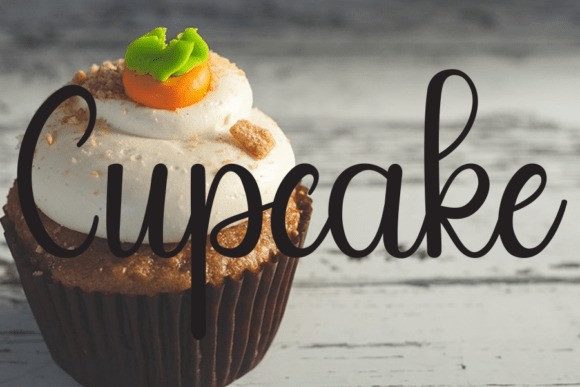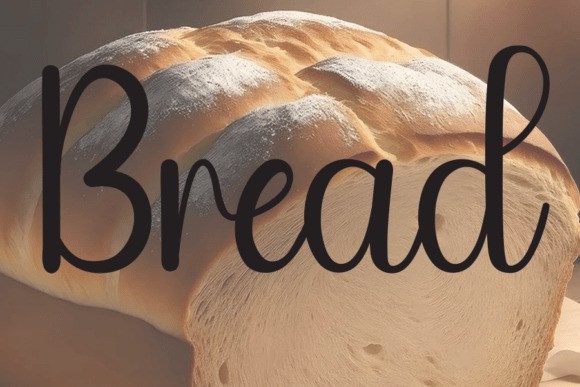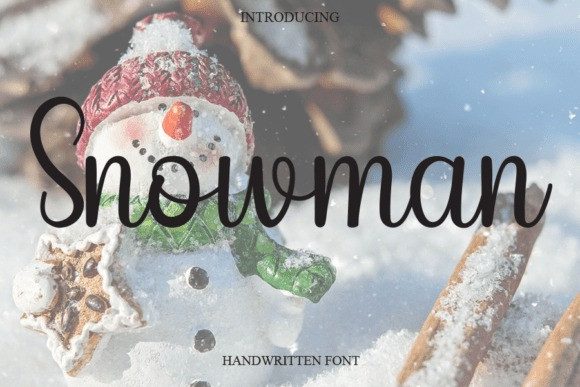
Snowman Script Typeface
Snowman Script Typeface is a trendy handwritten font with a contemporary atmosphere and impeccable form, inspired by timeless classic calligraphy. It will add elegance and class to any of your design projects.